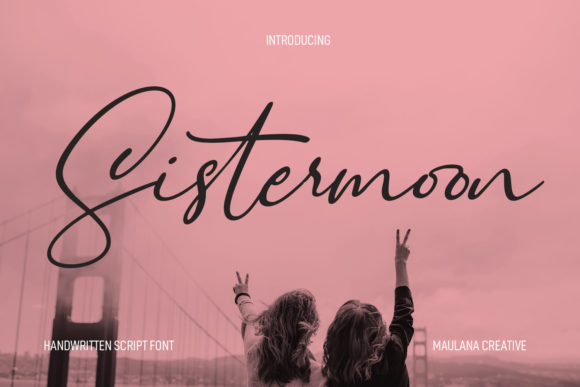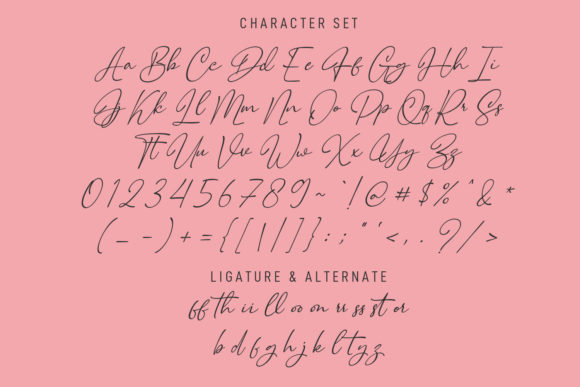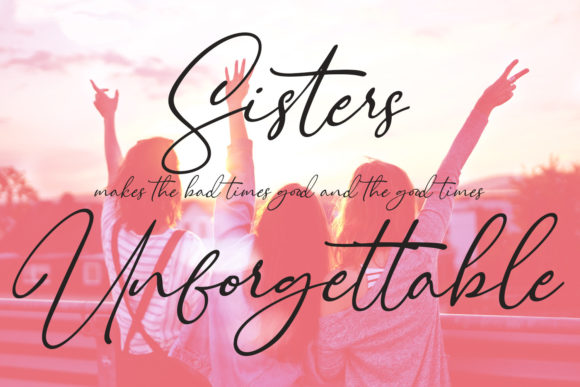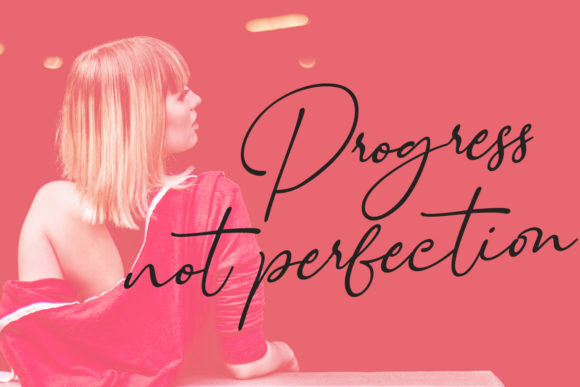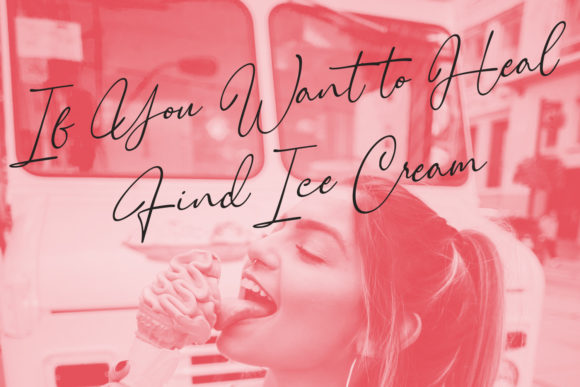
About Sistermoon Script Font
“Sistermoon” is a captivating fancy script font distinguished by its super slanted pen strokes. Boasting a playful character with touches of ligatures and alternates, this font is a fantastic choice for a wide array of creative projects.
The font’s super slanted pen strokes lend it a unique and dynamic quality. Whether you’re crafting logos, social media graphics, movie titles, book titles, short text, or even longer passages, “Sistermoon” can help your work stand out with its distinct and artistically crafted aesthetic.
The incorporation of ligatures and alternates adds depth and character to the font. This feature empowers you to explore creative possibilities, enabling you to design captivating and visually appealing compositions.
In essence, “Sistermoon” is more than just a font—it’s a versatile creative tool designed to help you produce stunning work. Its super slanted pen strokes and additional design elements make it a valuable asset for designers aiming to create designs that are both eye-catching and imaginative, leaving a lasting impression.